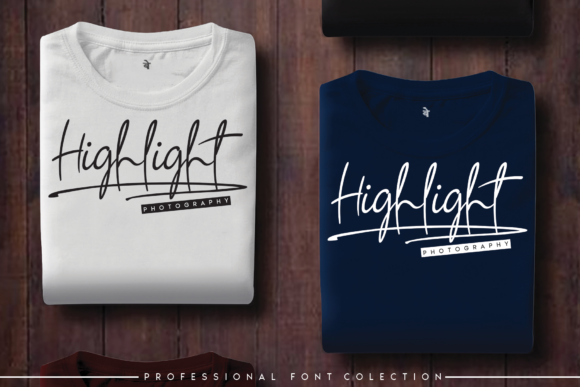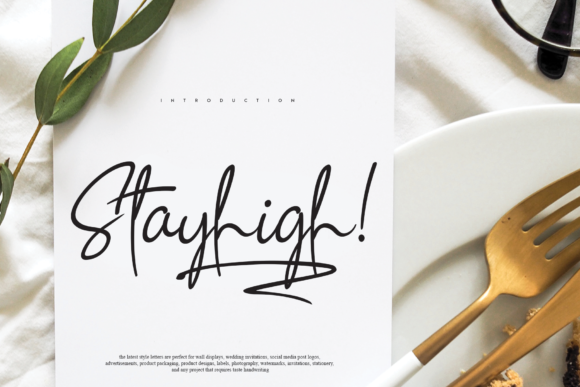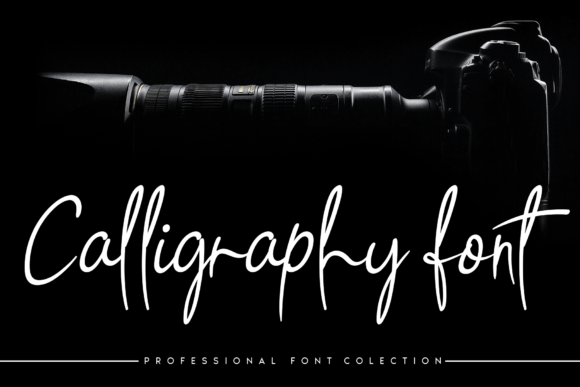
Introduction to Selliattago Font
Selliattago is a flowing handwritten font, described by an elegant touch, perfect for your favorite projects.
Key Features of Selliattago Font
Why Choose Selliattago Font?
Selliattago Font offers exceptional quality and versatility, making it a valuable addition to your design toolkit. Whether you’re creating for personal projects or commercial use, Selliattago Font delivers professional results.